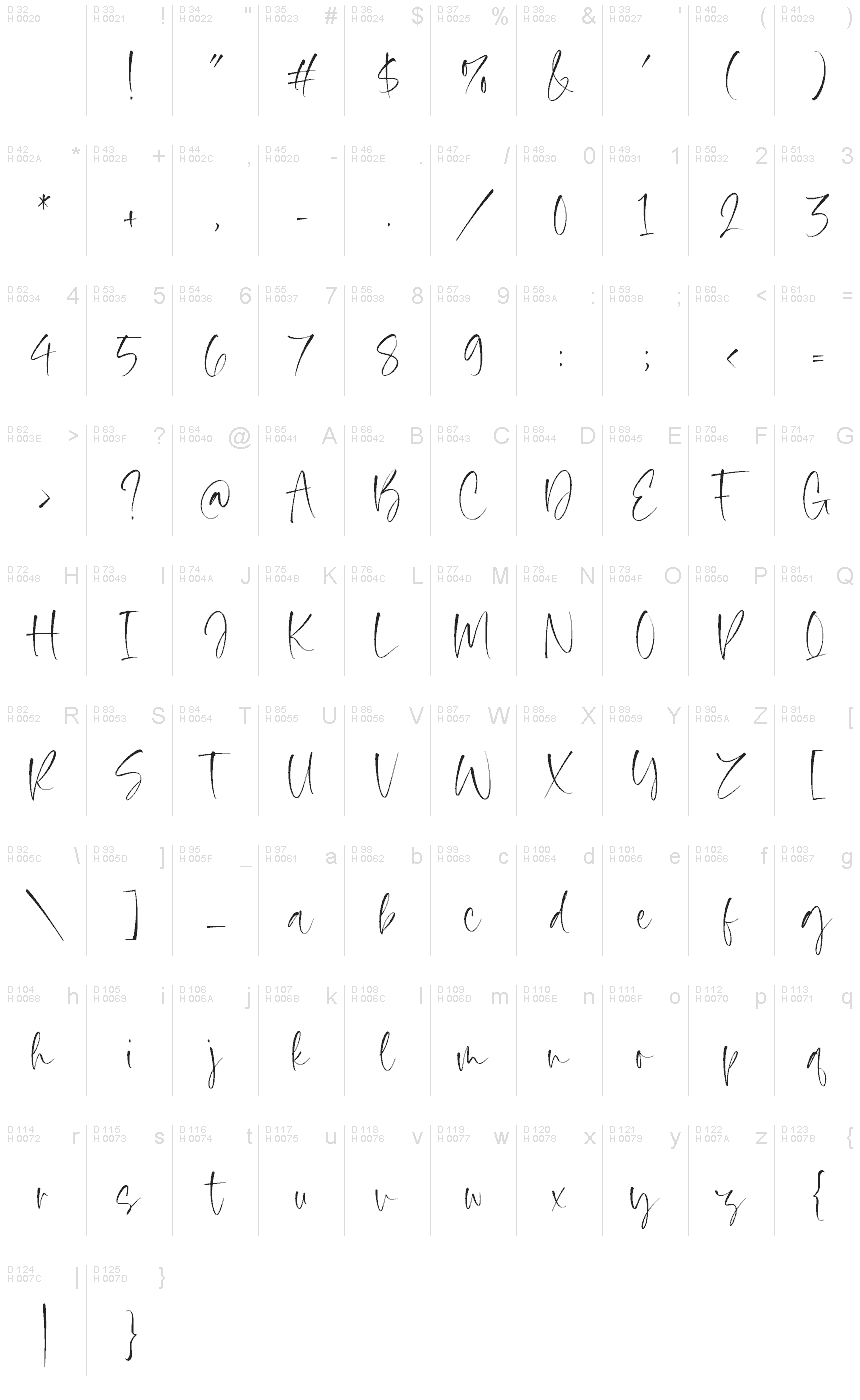
Silver Brighter
Silver Brighter font by Timur Type is a handwritten, signature font made with a calligraphic pen on paper. It displays thin lines that carry out an elegant style with expressive movements, bringing forth modernity and an artistic flair. The light free handwritten font has ligatures and alternates for the lowercase letters to add more personalization options.
Locally or digitally use Silver Brighter in magazines, headlines, books, brochures, flyers, websites, or app designs. The charm of the font extends to branding projects related to luxury products and those aimed at female audiences like perfumes and cosmetics where Silver Brighter makes wonderful logos.